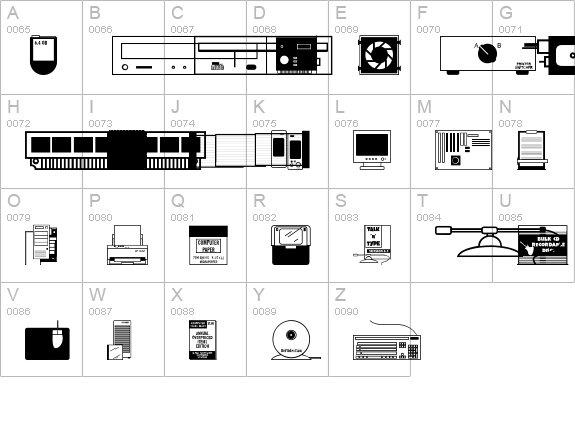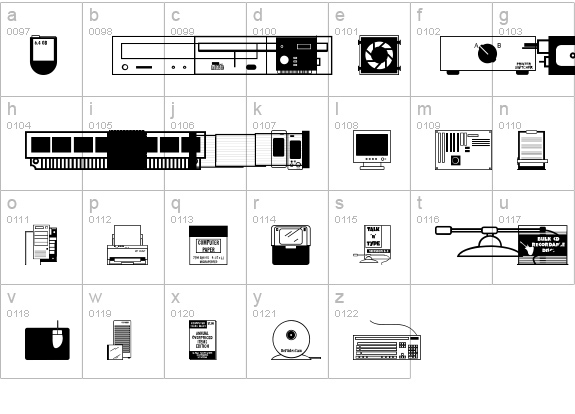
Assorted Computer Stuff JL Font Details
The Assorted Computer Stuff JL font is a versatile and unique typeface that brings a touch of creativity and playfulness to your projects. With its assortment of quirky symbols and characters, this font is perfect for adding a fun and whimsical element to your designs. Whether you're working on a poster, website, or any other creative project, the Assorted Computer Stuff JL font is sure to make a statement. Best of all, this font is available for free download at FontsMarket.com. Simply visit the website to access this fantastic font and start incorporating its charm into your designs today. Don't miss out on the opportunity to add a touch of personality to your projects with the Assorted Computer Stuff JL font – download it for free now!